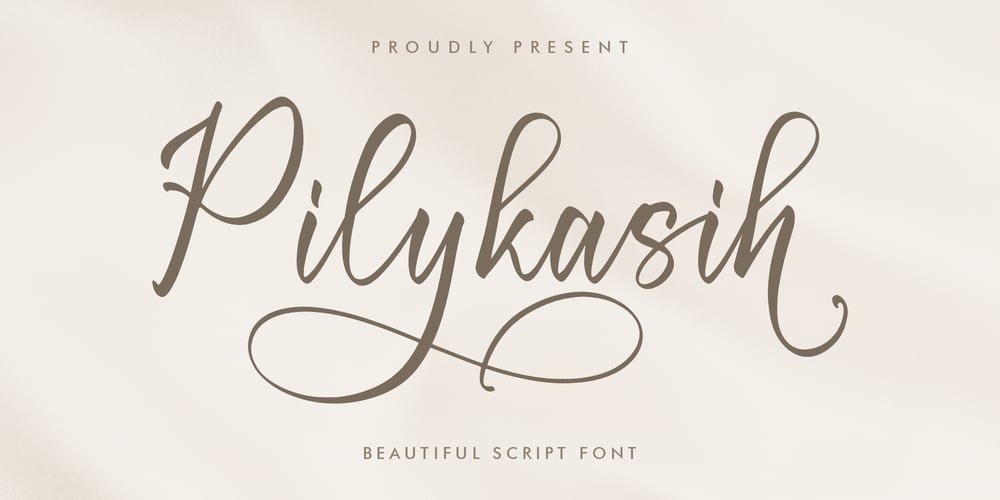
Pilykasih Font Family was designed by Heru Utama Putra and published by Letterena Studios. Pilykasih contains 2 styles and family package options. Pilykasih is a dazzling script font. This font is neatly crafted and highly detailed. Whatever the topic, this font will be a wonderful asset to your font library, as it has the potential to enhance any creation. Pilykasih is PUA encoded which means you can access all the glyphs and ligatures with ease!